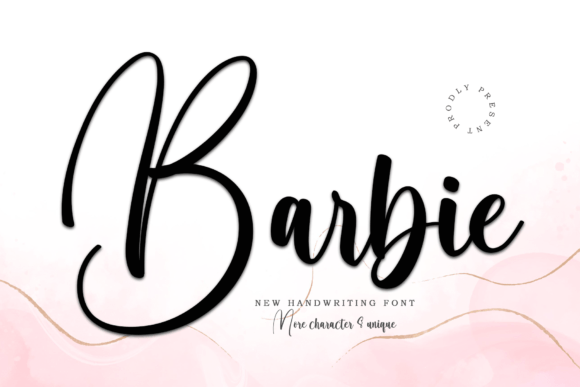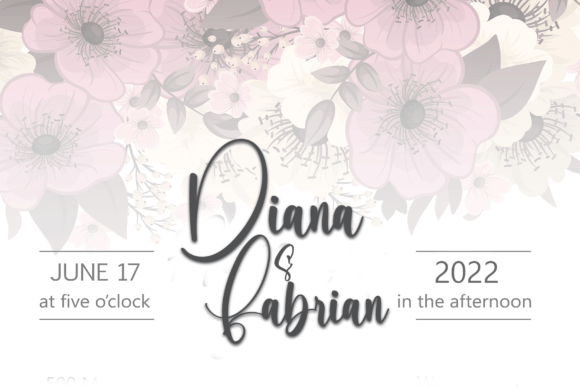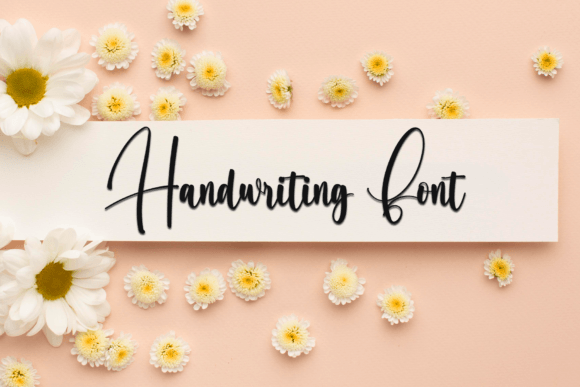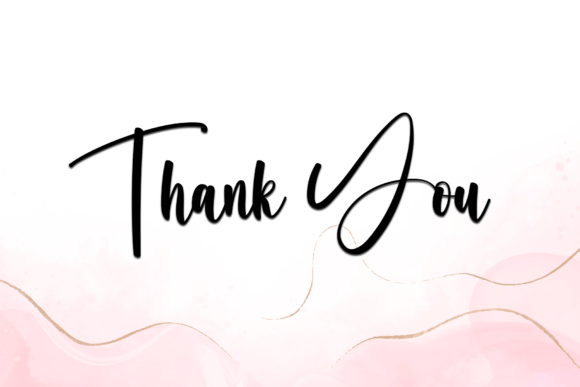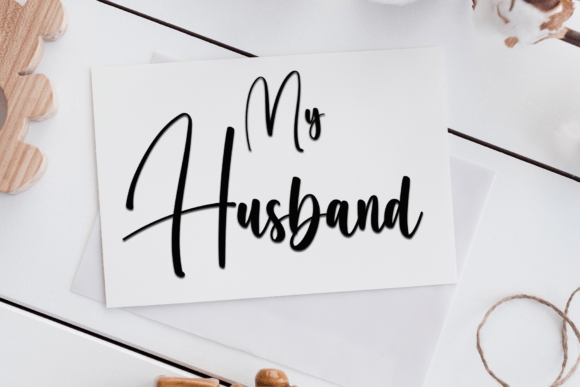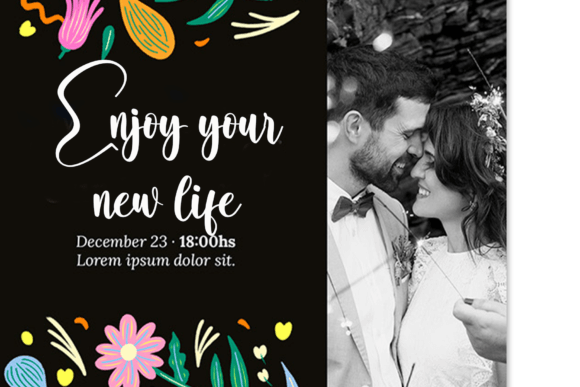
Barbie Font
About Barbie Font
Barbie is a stunning handwritten font that is sure to make your work stand out with its elegant and curvy lines. This font is perfect for a variety of applications, including product packaging, branding projects, magazine covers, social media graphics, weddings, or simply for expressing words above a background.
The beauty of Barbie lies in its gorgeous and graceful design, characterized by curves that add a touch of sophistication to the text. The handwritten quality of the font contributes to a personal and authentic feel, making it well-suited for a wide range of creative endeavors.
Whether you’re creating a brand identity, designing for social media, or working on a special event like a wedding, Barbie lends itself to versatility. Its elegant lines and curves enhance the overall aesthetic of your projects, creating a visually appealing and memorable impact.
Imagine Barbie gracing product packaging, adding a luxurious and stylish touch. Picture it on a magazine cover, where its unique charm draws attention. Whether used in digital or print media, Barbie is designed to stand out and make a statement in your designs.
In summary, Barbie is not just a font; it’s a design asset that elevates your work with its gorgeous and elegant lines. Let it be the choice that brings a touch of sophistication to your projects, making them visually stunning and unforgettable.